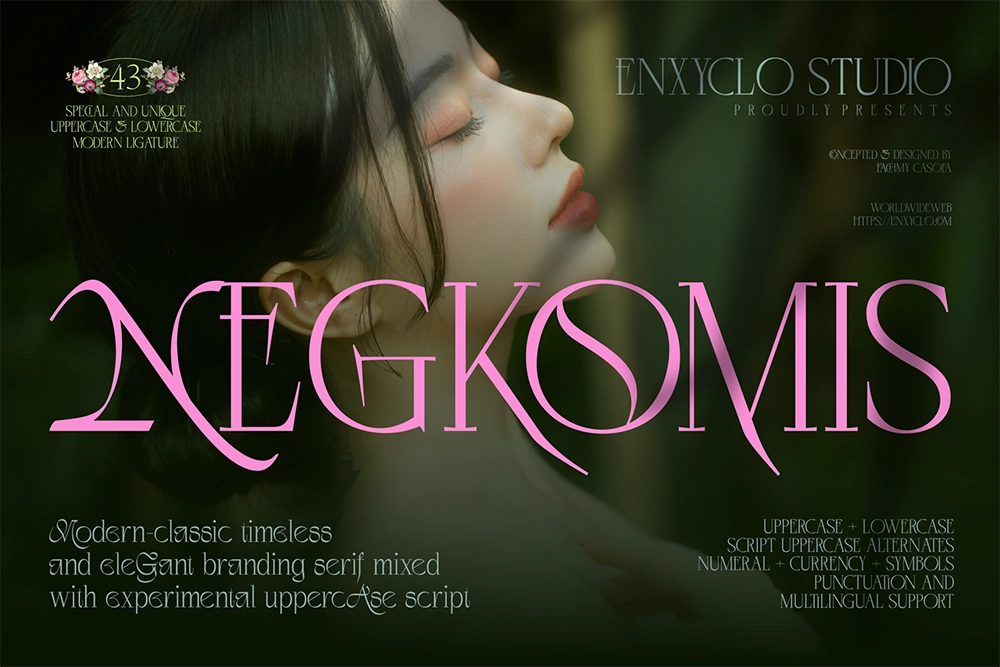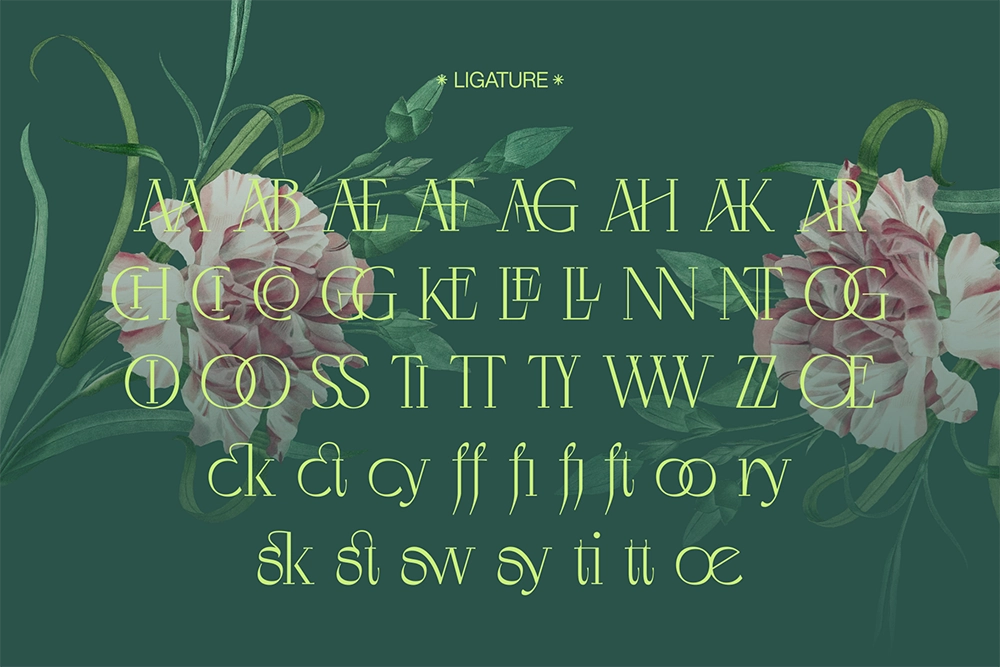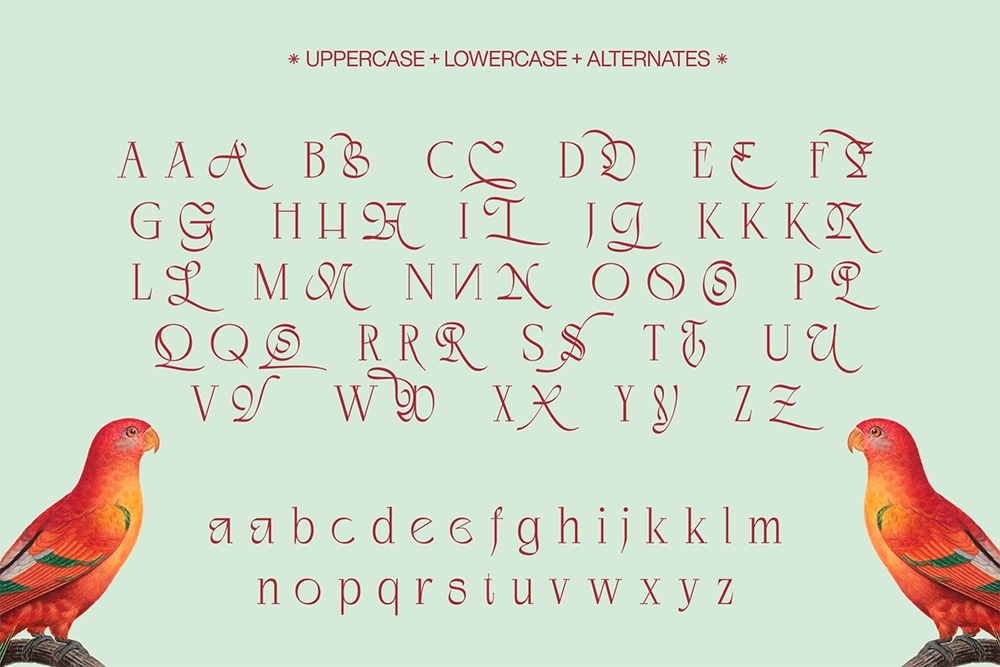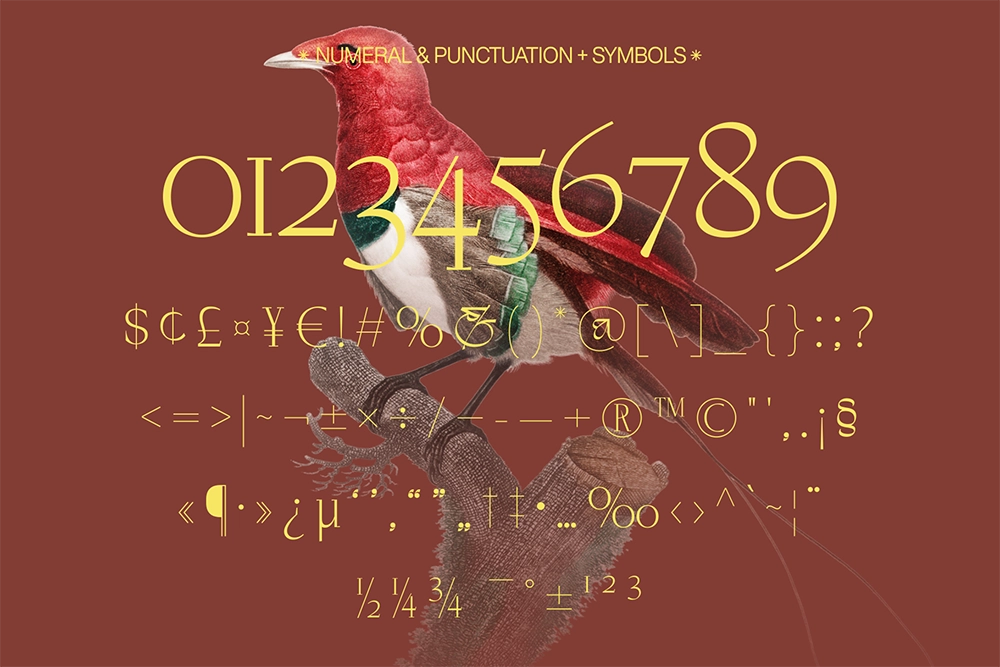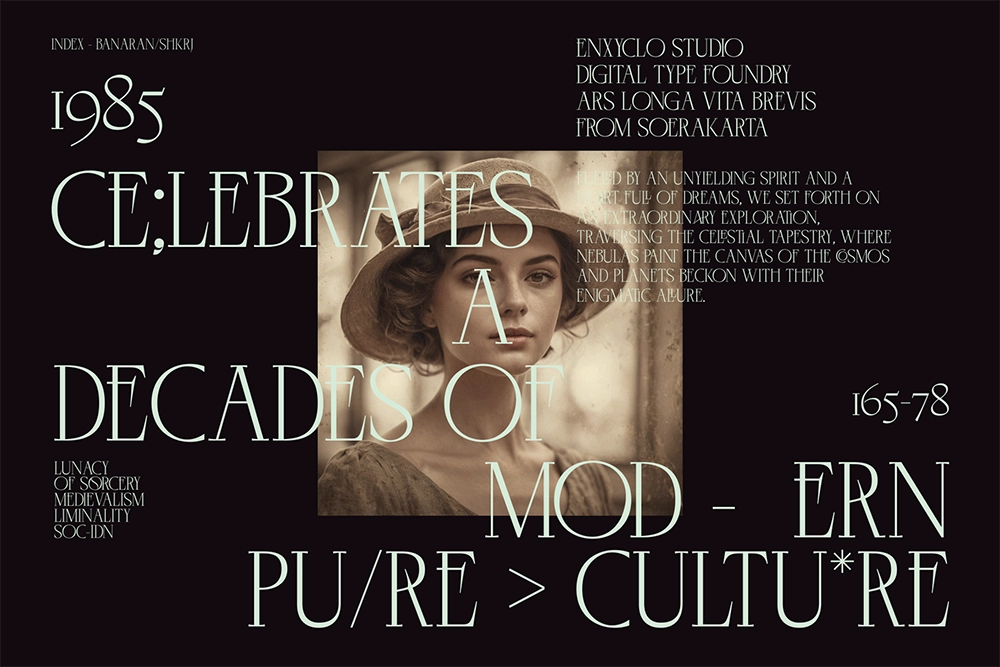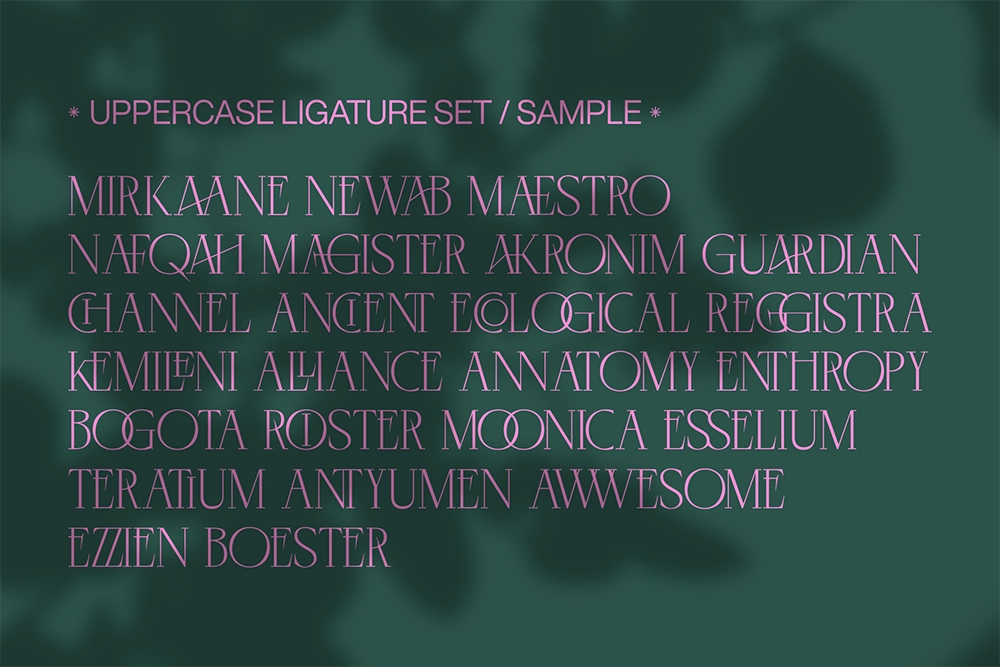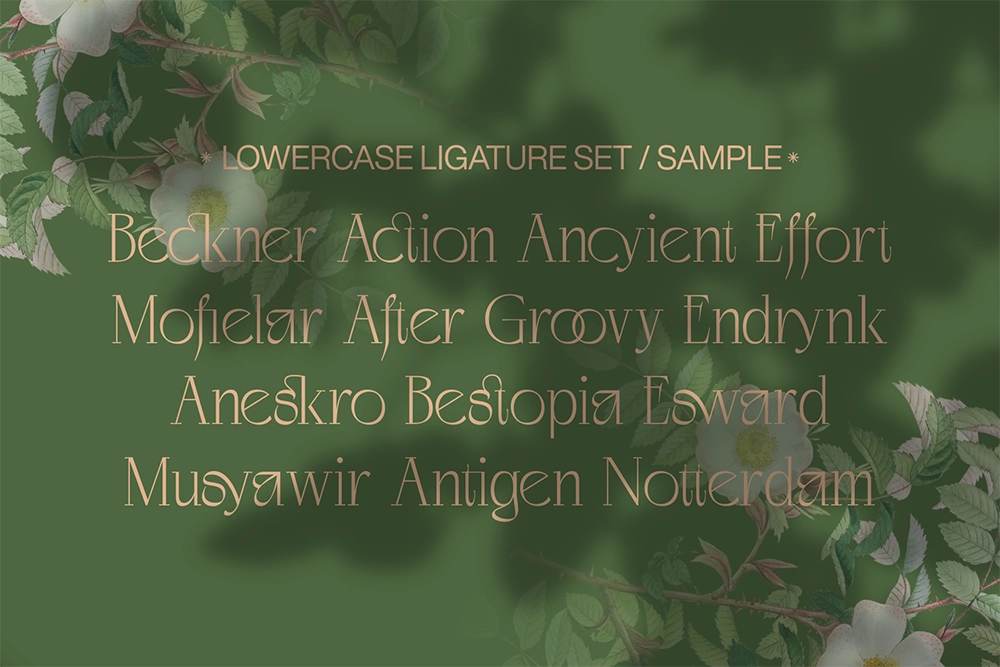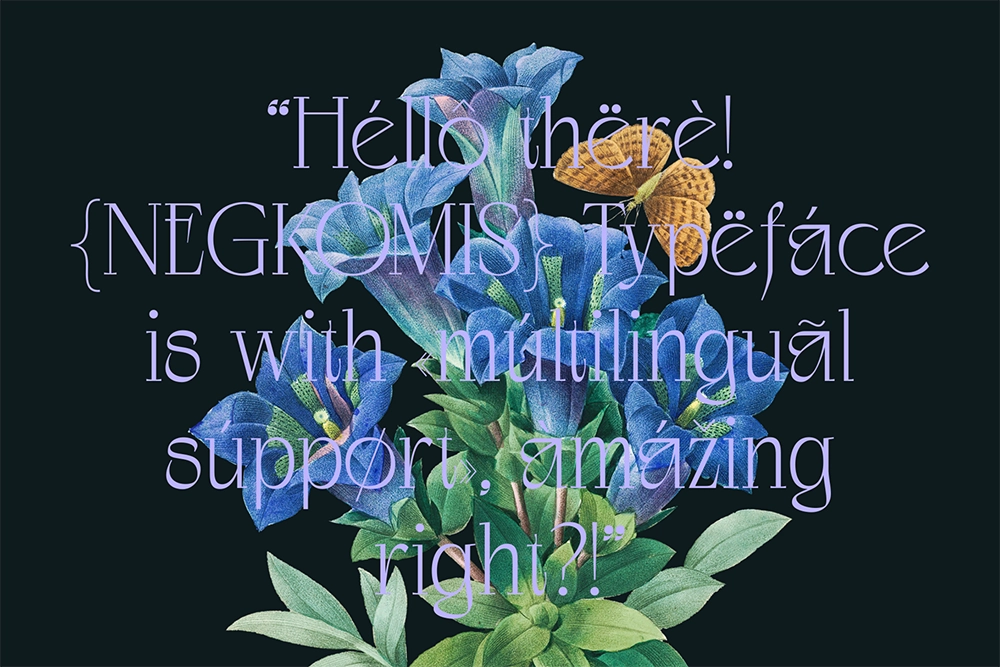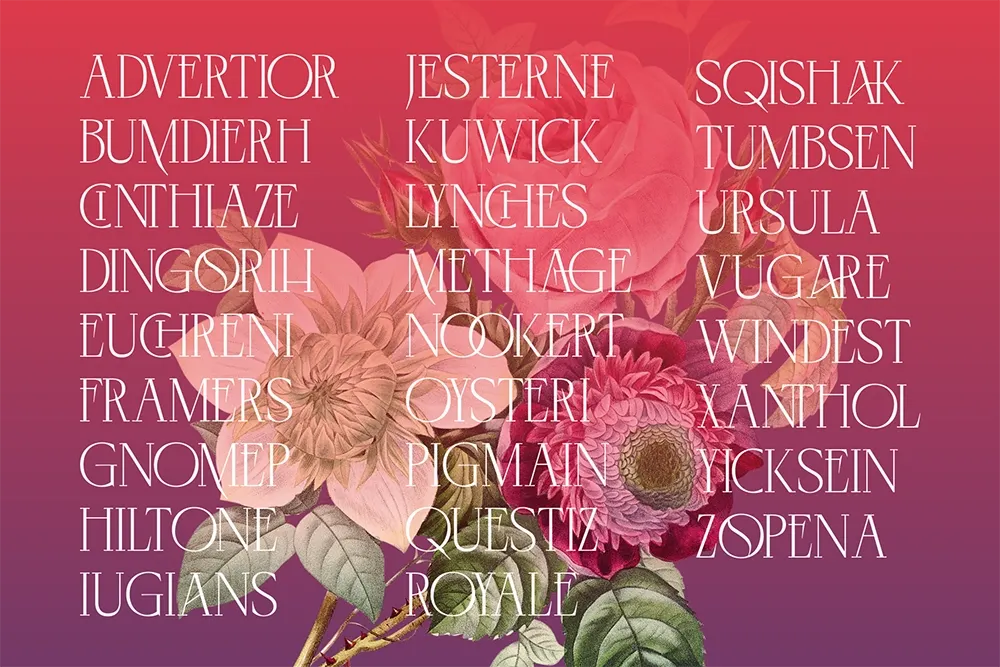
Negkomis - Luxury Fashion Serif Font
Negkomis – Luxury Fashion Serif Font is an elegant modern-classic typeface that blends refined serif structure with experimental uppercase script elements. Designed with sharp, precise angles and graceful curves, Negkomis delivers a luxurious and stylish aesthetic that feels both timeless and contemporary. The unique combination of classic serif letterforms and expressive script-style uppercase characters creates a distinctive typographic identity perfect for high-end branding.
Crafted for designers who want sophistication and personality in their typography, Negkomis includes numerous ligatures, alternates, and decorative ornaments that allow for expressive and visually captivating compositions. Whether used for fashion branding, editorial headlines, logos, posters, or luxury packaging, this typeface adds a refined and glamorous presence to any creative project.
- 319 Glyphs
- 43 Ligatures
- Stylistic Set 1–2
- Alternates
- 9 Ornaments
- Uppercase & Lowercase Characters
- Numerals, Punctuation & Symbols